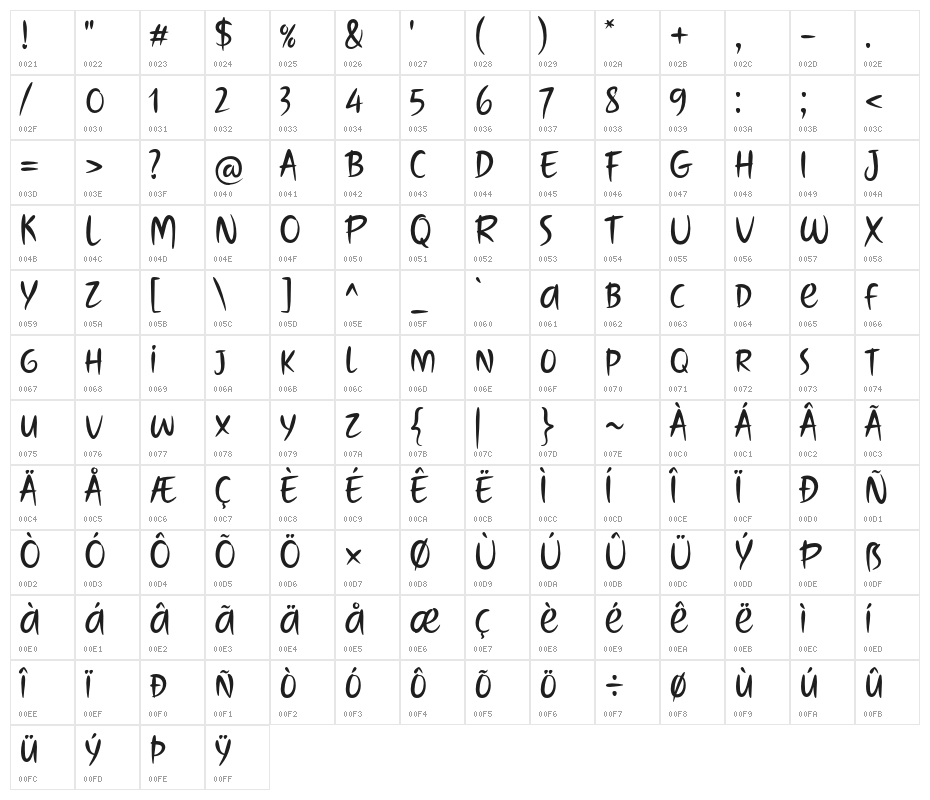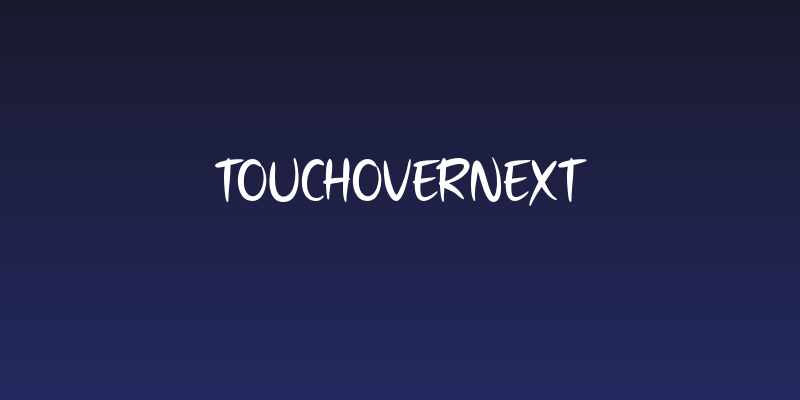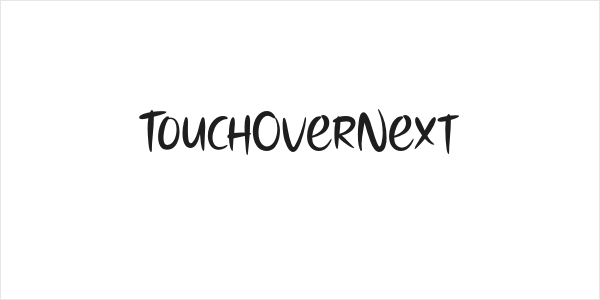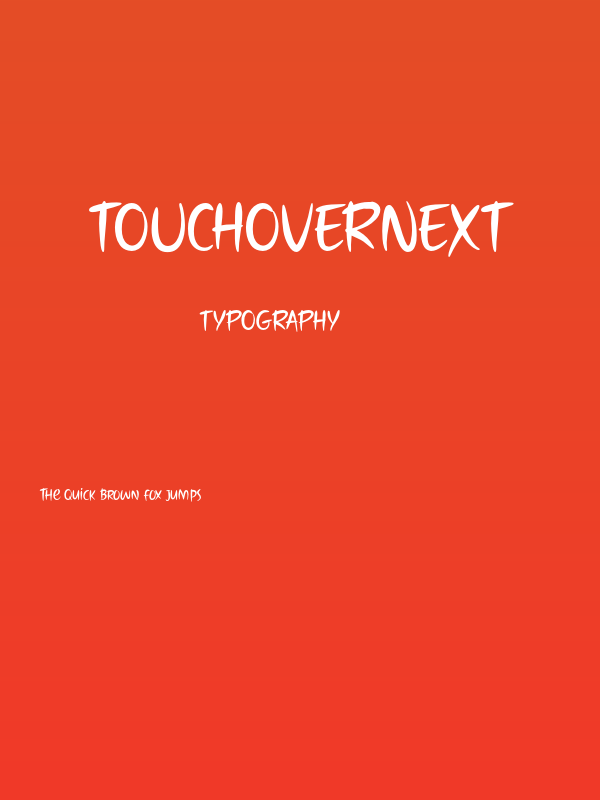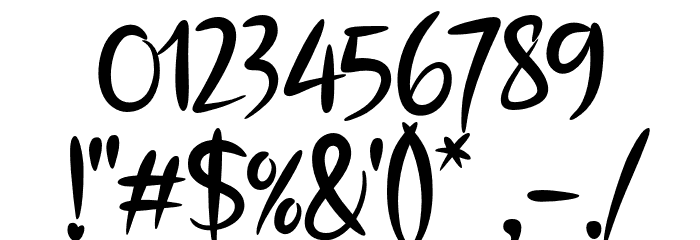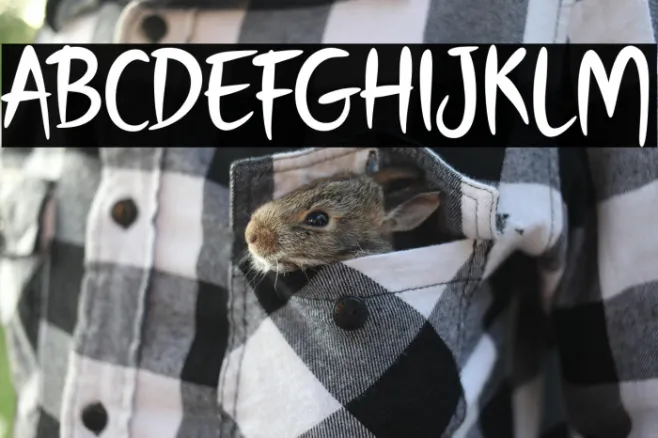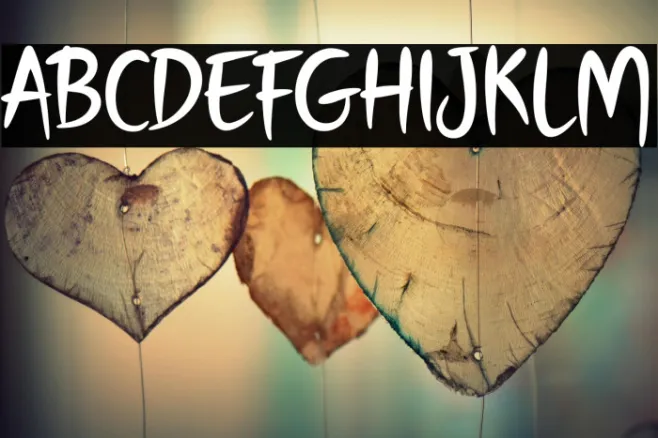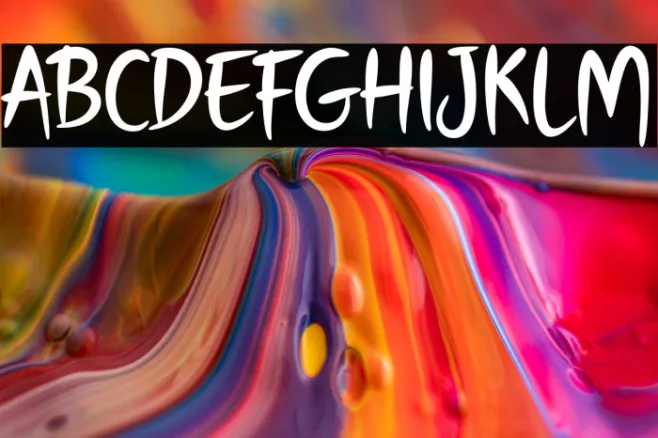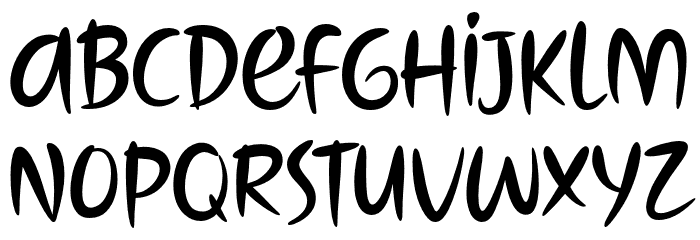
TouchOverNext Font
TouchOverNext Description
This font exhibits a lively and dynamic handwritten style, characterized by its fluid and slightly irregular strokes that convey a sense of movement and energy. The uppercase and lowercase letters maintain a consistent flow, with rounded edges and a slight slant, enhancing its casual and approachable appearance. The numerals and special characters are crafted with the same playful touch, ensuring uniformity across the character set. This font's unique personality makes it ideal for projects that require a personal, informal touch, such as greeting cards, invitations, or branding for creative businesses.
| Proposed Projects | Ideal for greeting cards, invitations, creative branding, and informal communications. |